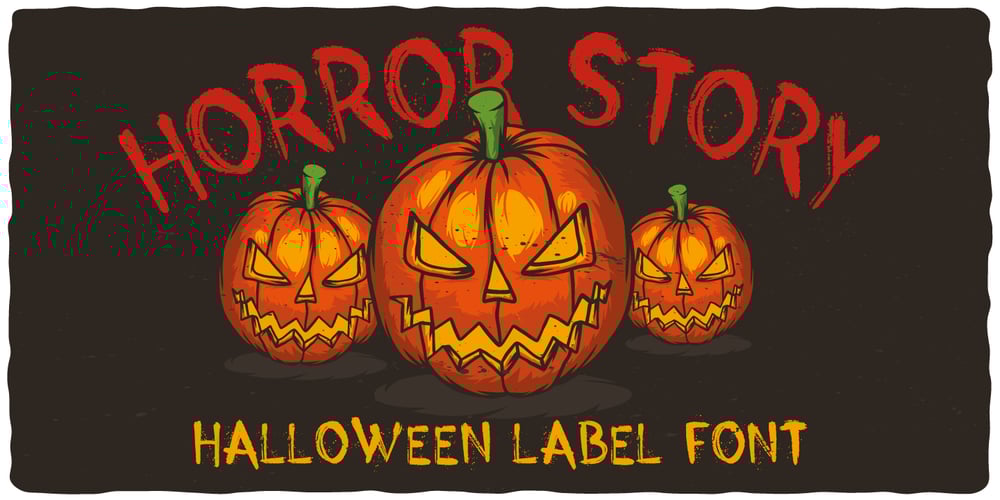
Horror Story Font Family was designed by Oleg Voznyy and published by Vozzy. Horror Story contains 1 styles and family package options. Introducing a hand crafted label font named Horror Story. All available characters you can see at the screenshot. This font will good viewed on any Halloween theme designs like posters, t-shirts, labels, logos, etc.